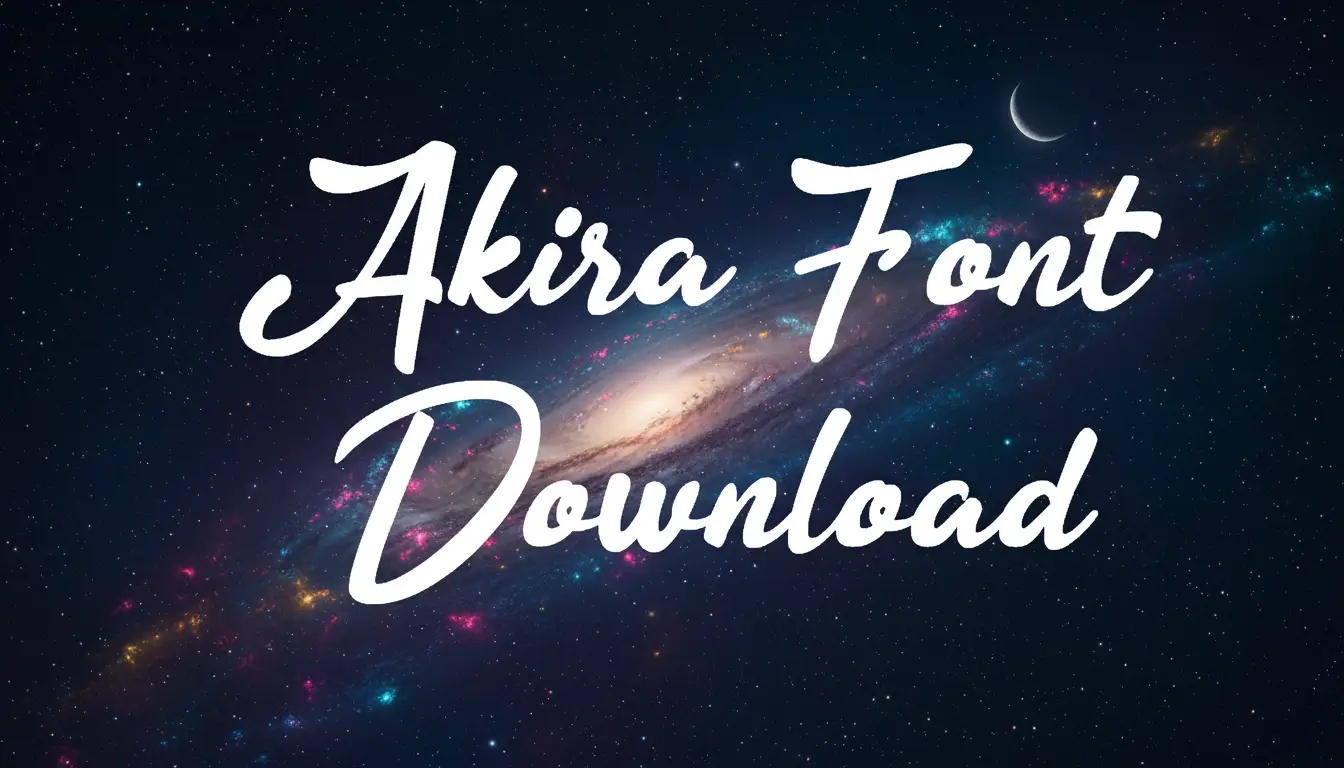
Akira Font
Akira
Akira is a script font designed by Wahyu Eka Prasetya, Andhika Pradana. Its flowing, pen-made letters give names and short phrases a personal, polished look. It's a free download, and you can try it with your own text in the preview above first.
What You Can Type With Akira
You get every letter from A to Z in both cases and all the numbers from 0 to 9, which means Akira can handle full sentences, dates and prices. Common punctuation such as &, !, ? and @ is included as well. It doesn't include accented letters such as é or ñ, which makes it an English-only font.
Where Akira Works Best
Akira is a natural fit for wedding invitations, logos and signature-style headings. Script fonts read best in short bursts, so keep it to names, titles and one-line quotes. Skip all caps: script capitals are drawn to start a word, not to fill one.
Does Akira support accented letters?
No. Akira has no accented letters such as é, ñ or ü, so it's best for English text.